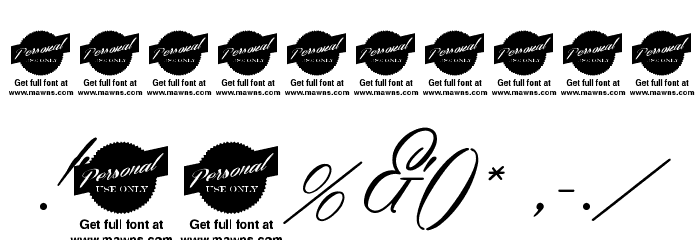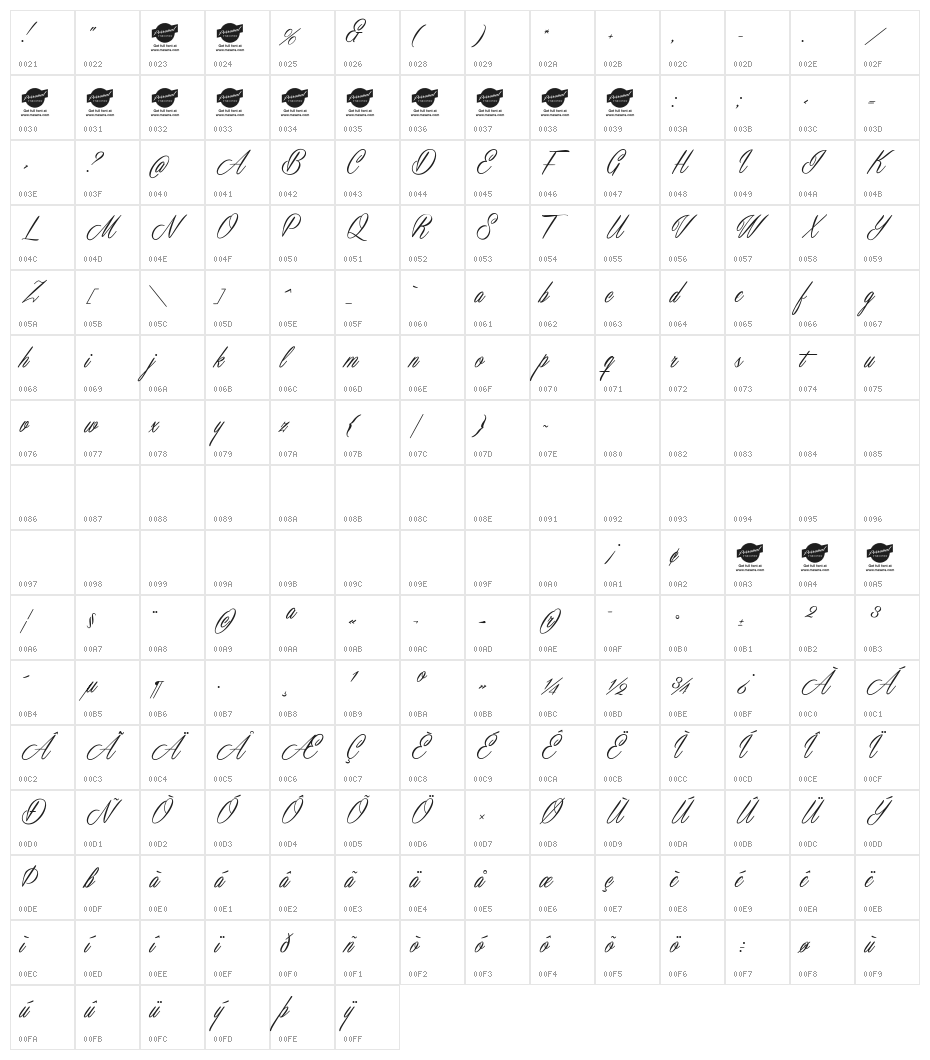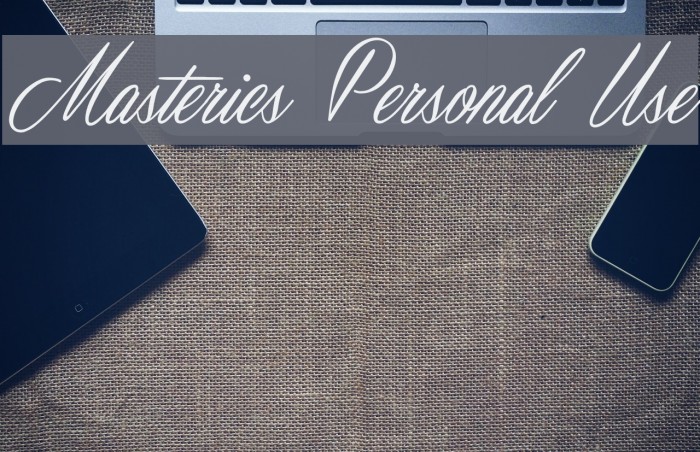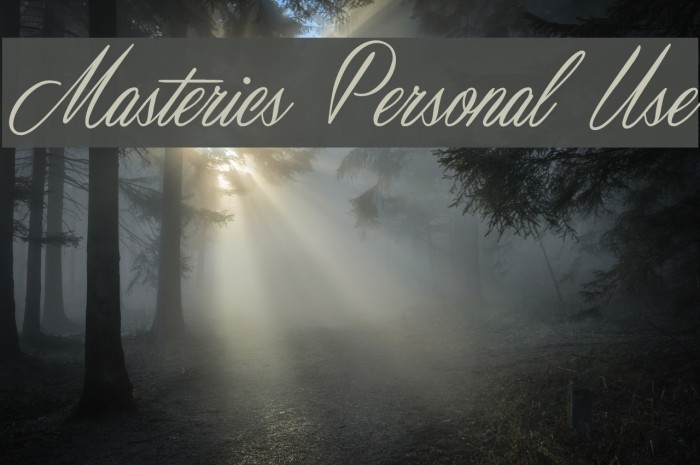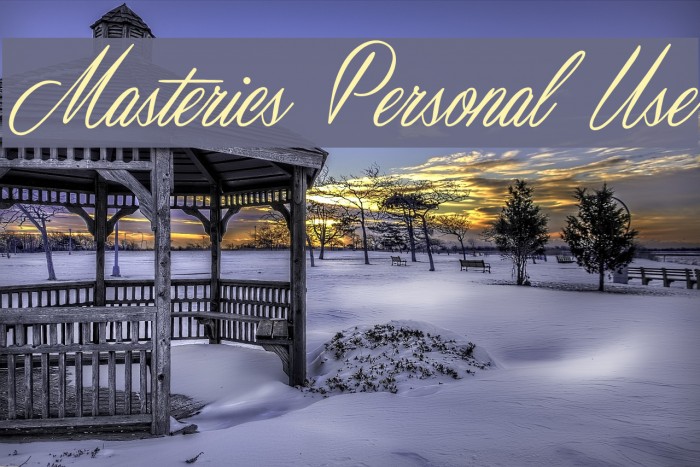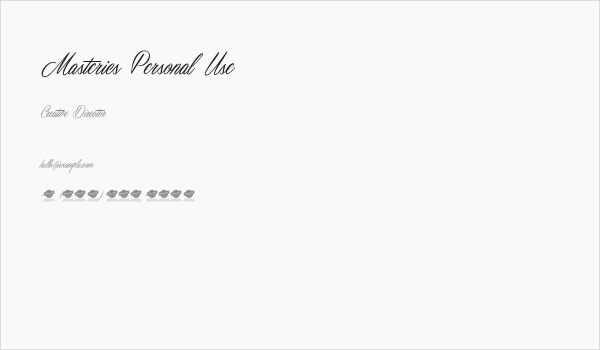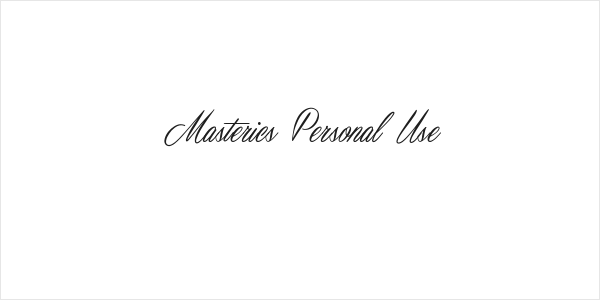
Masterics Personal Use Font
Masterics Personal Use Description
This elegant script font features a flowing, cursive style with high contrast between thick and thin strokes. The uppercase letters are ornate and sweeping, while the lowercase letters maintain a consistent, graceful flow. The font exudes a sense of sophistication and formality, making it ideal for projects that require a touch of elegance. The special characters are designed to complement the overall aesthetic, adding versatility to its use. The character spacing is tight, enhancing the connected, handwritten feel of the font.
| Overall Style | Elegant, Formal |
| Proposed Projects | Ideal for wedding invitations, elegant branding, formal event programs, and luxury product packaging. |